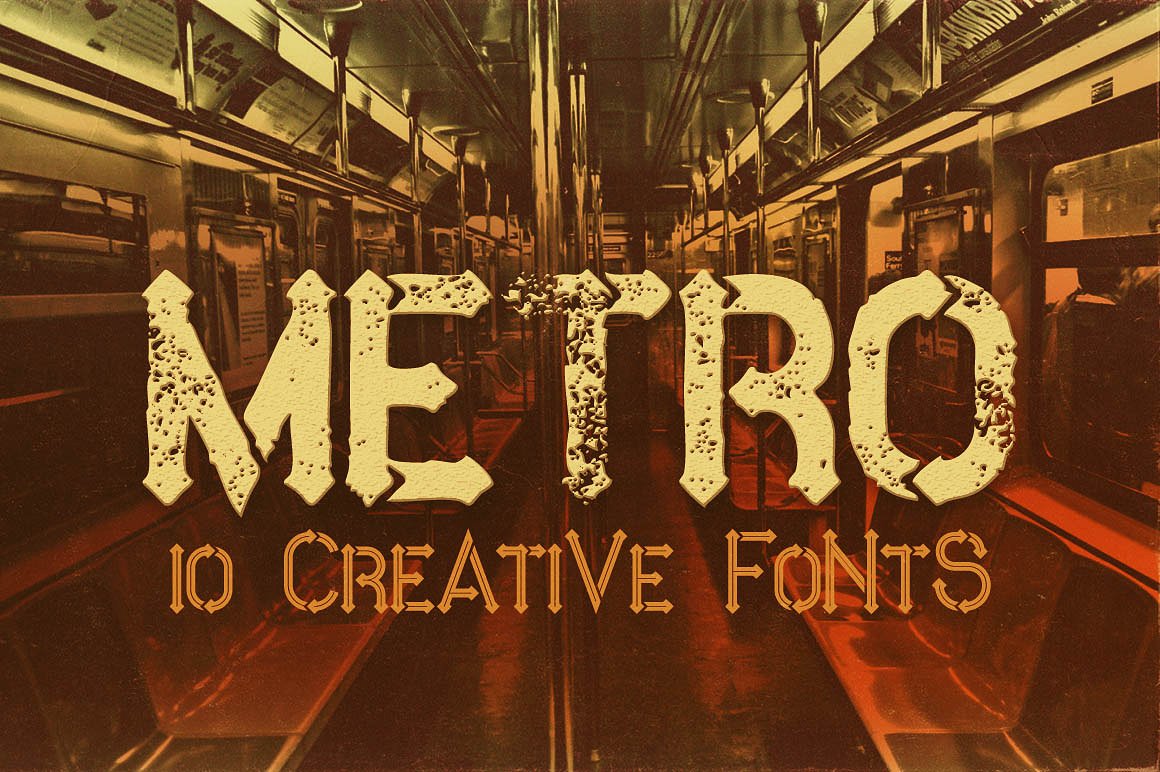
Metro Font Family
Creative, industrial & grunge font for your new projects. Great for modern or vintage style projects!
| Designer Name: | MIIM |
| Classification: | Blackletter / Gothic Fonts, Display Fonts |